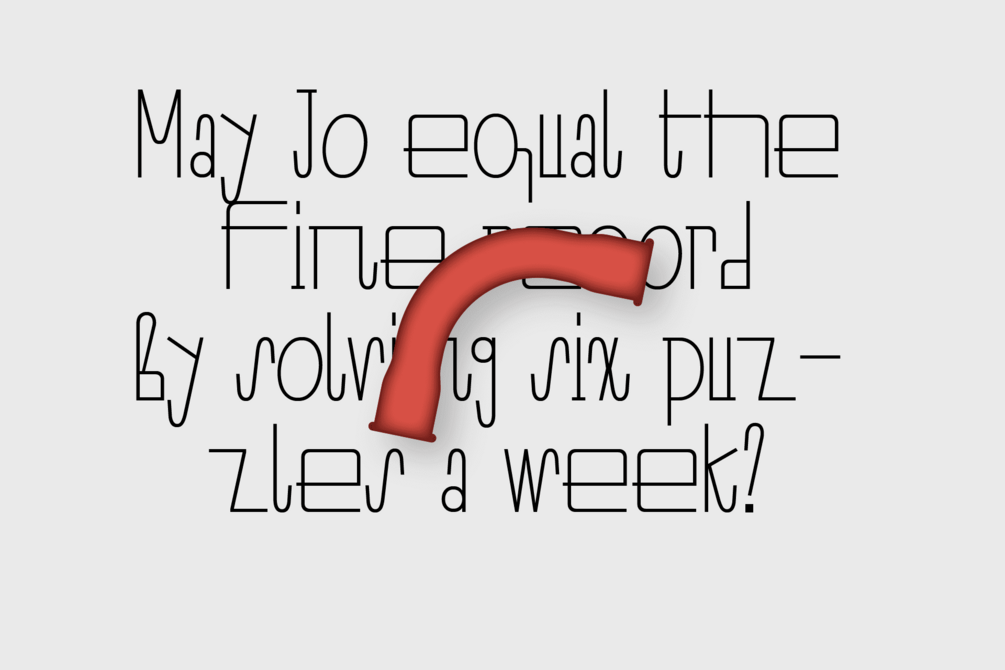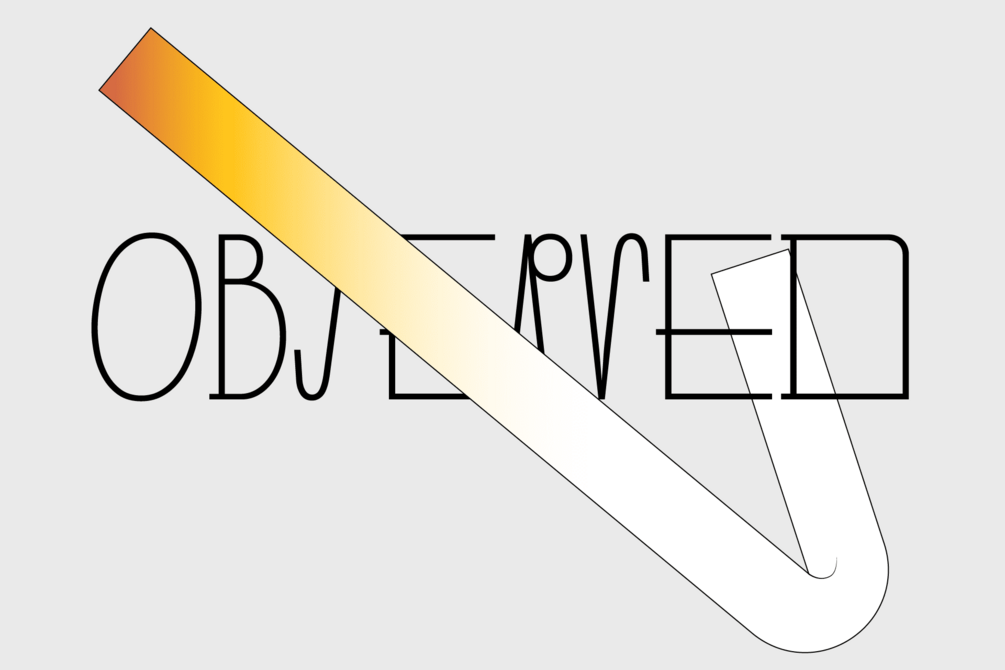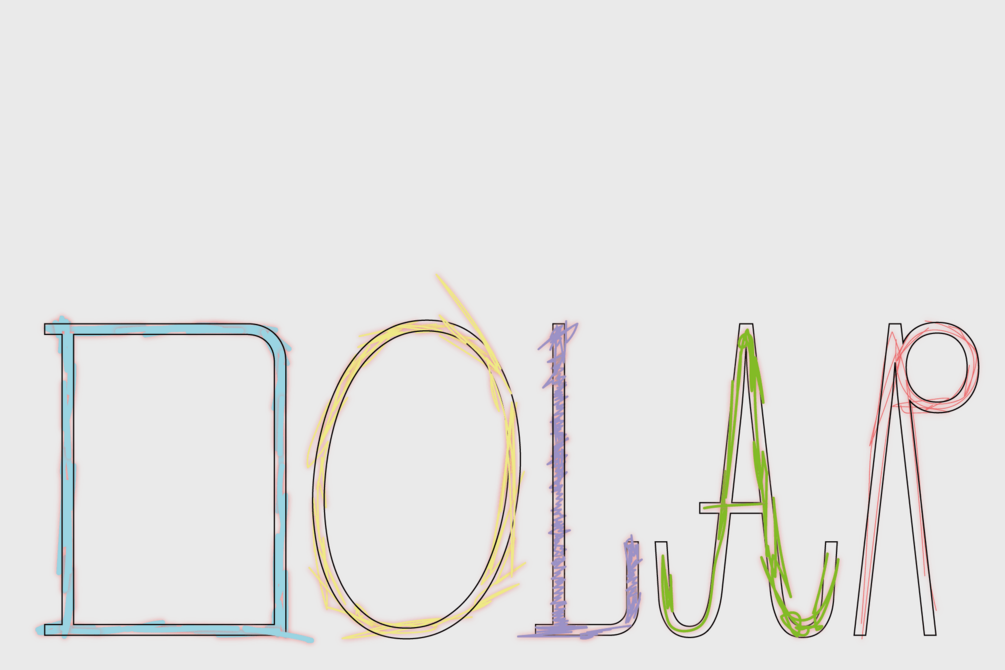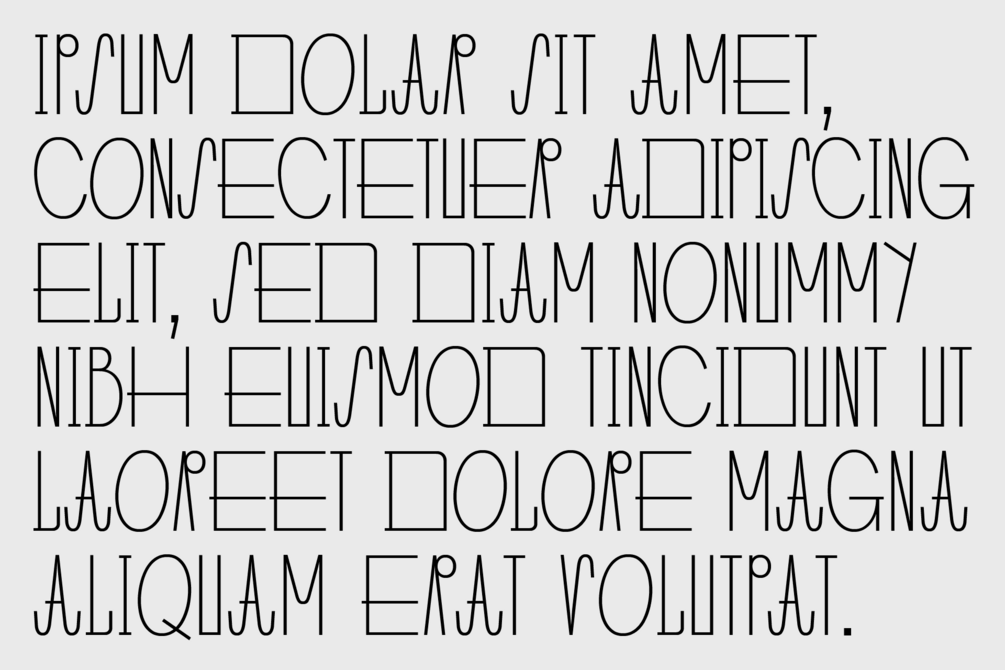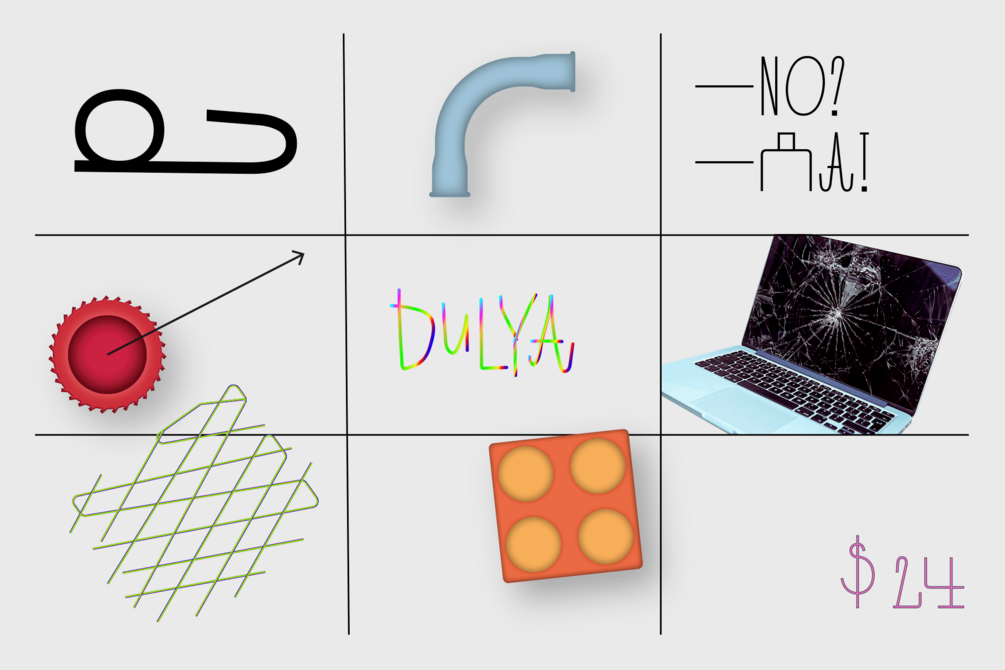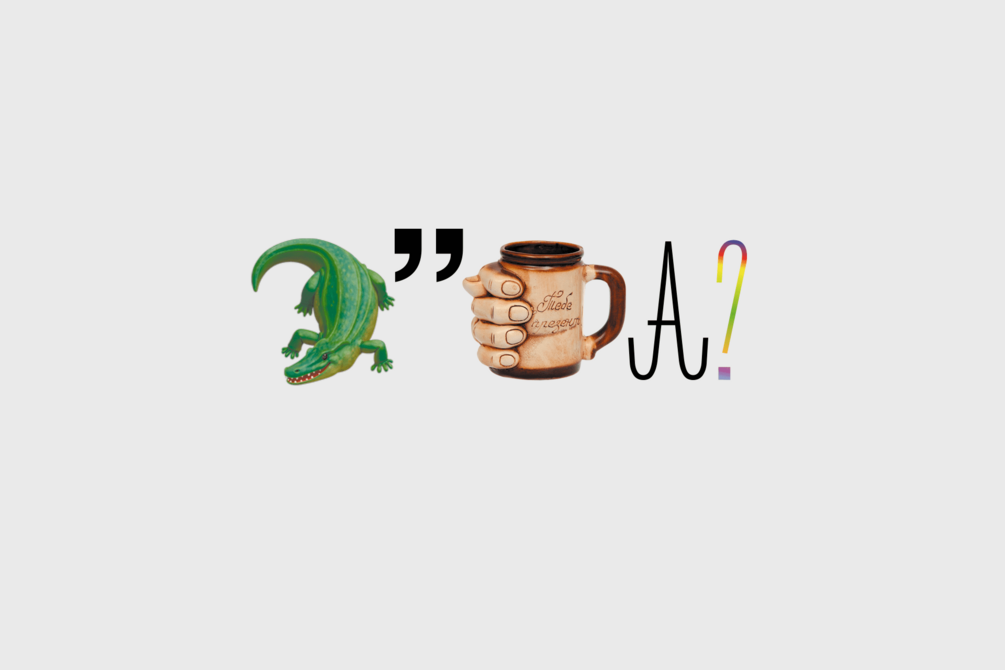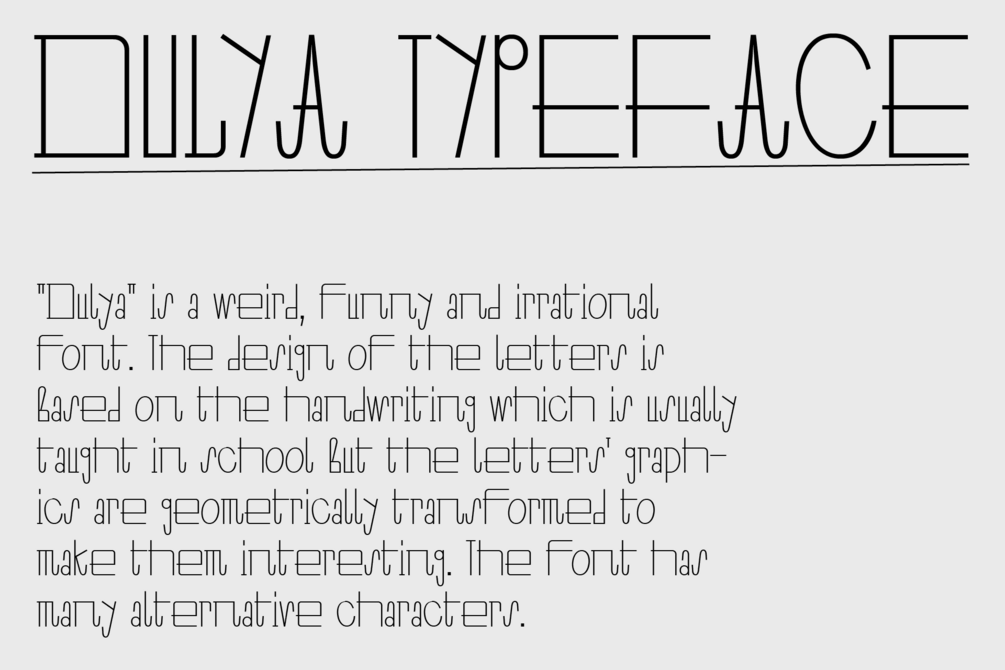
"Dulya" font
Dulya — is such a broken handwriting. Such a handwriting would be written by a naughty child at school. In fact, I decided to create this font when I saw the inscription "Doula" on the fence, there was a clumsy handwriting and it was clear that the pupils wrote. There is some geometric logic in the font, for example, in the rounding of the endings or the nodes of the joints. But this is not a font according to the grid or canons, and the mood is born from this. Thanks to the consistent elements, although it is very bright, it looks evenly in a text set.